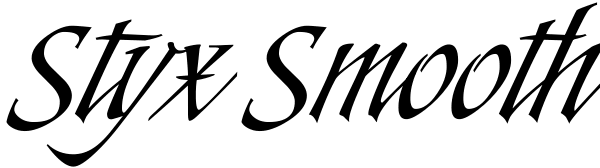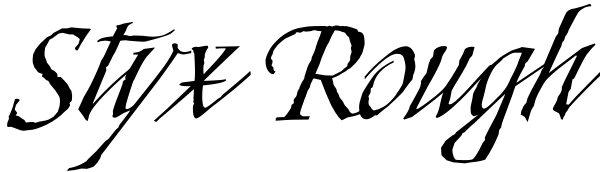
Styx
Philip Bouwsma makes use of his extensive calligraphy and type design experience by reaching into his vault and completing one of his unfinished projects from the mid-1990s. The result is Styx, a four-font connected-script family, with rough and...
Styx Smooth
Styx Smooth Alt
Styx Rough Alt
Styx Rough